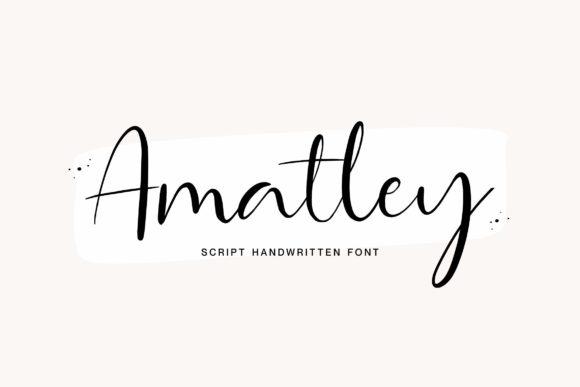
Amatley Script: Breathing Life into Creative Projects
In the realm of digital design, the tools we choose define the voice of our work. While clean sans-serifs often handle the heavy lifting of readability, there is a specific category of design assets that handles the heavy lifting of emotion. Enter Amatley Script. This premium font is not merely a collection of letters; it is a delicate, elegant, and flowing handwritten typeface designed to inject personality into any visual canvas. It features beautifully balanced characters that manage to look both spontaneous and meticulously crafted.
For the modern creative—whether you are a branding strategist, a small business owner, or a graphic designer—finding a font that bridges the gap between professional polish and human warmth is essential. Amatley Script does exactly that. It captures the essence of authentic handwriting without sacrificing the consistency required for professional logo design and editorial layouts.
The Visual Language of Amatley Script
When you first analyze the anatomy of Amatley Script, you notice the fluidity of its strokes. It avoids the jagged edges often found in lower-quality script fonts. Instead, it offers a smooth, flowing connectivity that mimics high-end stationery. The baseline has a natural rhythm, creating a visual melody that guides the eye across the page. This makes it an exceptional choice for display font usage, where the headline needs to make an immediate emotional impact.
The personality of this typeface leans toward sophistication and approachability. It doesn’t feel rigid or corporate, yet it carries a weight of professionalism. This balance is crucial for brand identity. If you are designing for a wedding planner, a boutique bakery, or a lifestyle coach, the font communicates care and attention to detail. It whispers rather than shouts, making it a powerful tool for modern typography that values subtlety over loudness.
Where This Handwritten Font Shines Brightest
One of the greatest strengths of Amatley Script is its versatility across different mediums. Because it is a creative font, it naturally fits into projects that require a personal touch.
- Packaging Design: Imagine a label for an artisanal coffee or a hand-poured candle. The flowing nature of Amatley Script adds immediate shelf appeal, suggesting that the product inside is crafted with care.
- Social Media Graphics: In the fast-scrolling world of Instagram or Pinterest, a static sans-serif can get lost. Using Amatley Script for quotes or promotional headers creates a focal point that stops the thumb.
- Editorial Design: While body text usually requires a standard serif font or sans serif font, drop caps and pull quotes in a script typeface like Amatley add a layer of editorial elegance.
- Logo Design: For businesses in the fashion, beauty, or food industries, a script logo sets a distinct mood. Amatley provides enough legibility to be functional while retaining a bespoke look.
However, context is everything. As a designer, you must evaluate the project fit. Amatley Script is not designed for long-form body text; its beauty lies in its role as a display font. It works best when given room to breathe, allowing the swashes and ligatures to be appreciated without visual clutter.
Influencing Brand Perception and Hierarchy
Typography is silent communication. The choice of typeface influences how a user perceives the quality of a product or service. By incorporating Amatley Script into your designs, you are signaling a desire for connection. Handwritten fonts trigger a psychological response that feels more "human" than digital block letters. This is vital for audience engagement.
Consider the concept of visual hierarchy. In a layout containing multiple pieces of information, Amatley Script can serve as the primary visual anchor for the most important message. For example, in a web design hero section, the main value proposition written in Amatley Script draws the eye instantly, while supporting technical details in a clean sans-serif provide the necessary context. This interplay between a script font and a structural typeface creates a dynamic and organized reading experience.
Practical Guidance for Font Pairing and Usage
Successfully integrating a premium font like Amatley Script requires more than just installation; it requires strategy. Here are practical recommendations for getting the most out of this typeface:
1. Mastering Font Pairing
The golden rule of pairing script fonts is contrast. Because Amatley Script is ornate and flowing, it pairs exceptionally well with clean, geometric sans-serifs or traditional serifs. Avoid pairing it with other decorative fonts, as this creates visual competition. A sturdy font like Montserrat, Lato, or a classic Garamond provides the perfect structural counterweight to the fluidity of Amatley Script.
2. Legibility and Sizing
Because of its intricate letterforms, Amatley Script requires careful attention to size. It renders beautifully at larger sizes for headers, but if you shrink it too small, the delicate strokes may blur or disappear, particularly on low-resolution screens. Always test your web design across mobile devices to ensure the font remains crisp.
Whether you are a hobbyist creating invitations for a family event or a marketing professional launching a global campaign, the principles remain the same. Typography dictates tone. By choosing a font that is delicate, well-balanced, and flowing, you are setting the stage for a positive user experience. Amatley Script is more than just a creative font